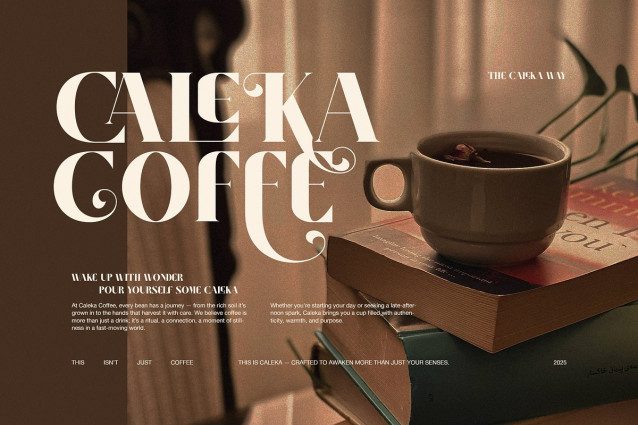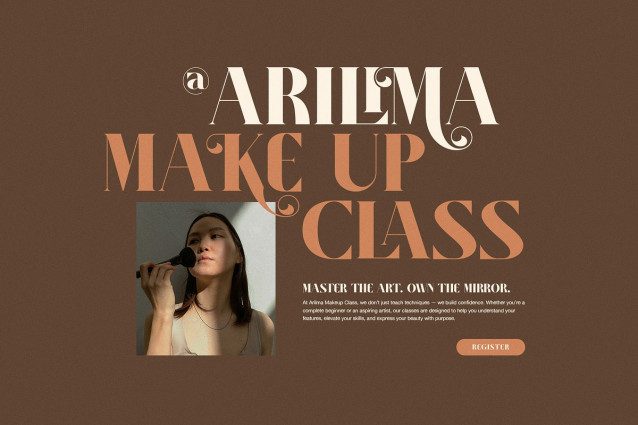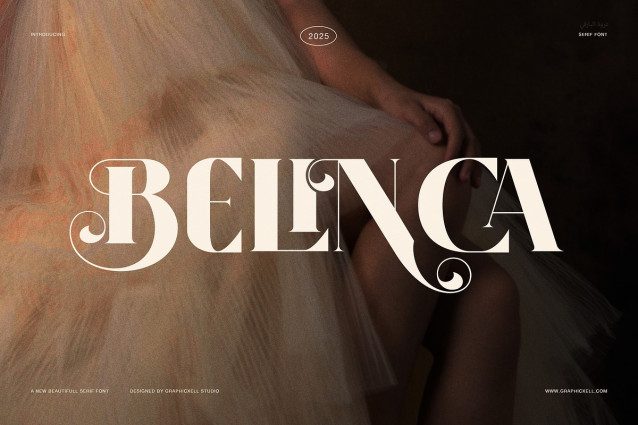
Belinca Font
Belinca Font offers timeless beauty and clear readability. First, this serif typeface features a classic design with fine details that help your text stand out. Many designers use it for headlines, logos, branding, and editorial layouts because it brings a stylish yet friendly feel to any project.
Moreover, Belinca blends vintage charm with modern clarity. For example, you can use it for wedding invitations, magazine covers, or luxury packaging to add a clean, professional look. The font works well for creative projects that need a serif font which is both decorative and practical.